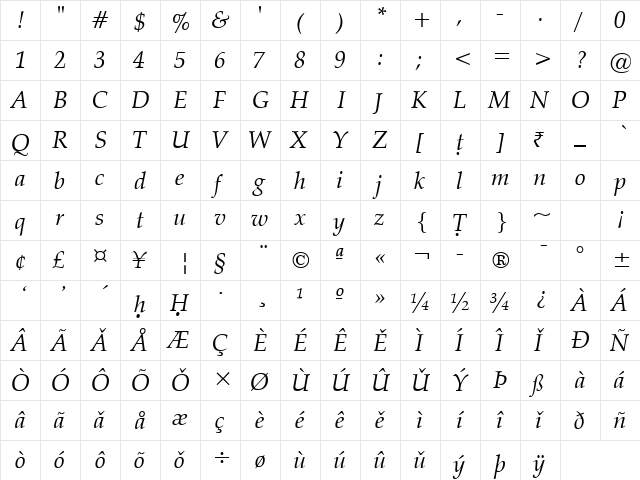
VANIEL Italic
Design Context for VANIEL Typeface
VANIEL is a composed and adaptable typeface that performs quietly and consistently across a wide range of design contexts. Its italic angle brings a sense of urgency and motion to the letterforms.
Pro Tip: Try VANIEL for annotation and caption copy alongside an upright companion — the contrast in angle creates a dynamic but ordered typographic system.